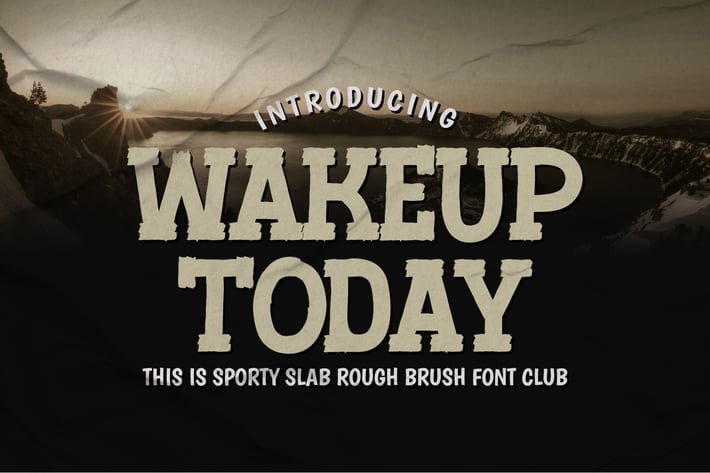
Wakeup Today - Slab Rough Brush Font Club
Wakeup Today- Slab Rough Brush Font Club Strong Brush Font is a Authentic brush Font that is written casually and quickly.
Every glyphs are made with Procreate. Then trace down into a vector format, and carefully crafted into a typeface.
That is why Wakeup Today has rough, authentic and strong characteristic more natural look.
Wakeup Today Perfect for designs,branding projects, Logo design,
Quotes product packaging and another Project thet require cool strong brush font.